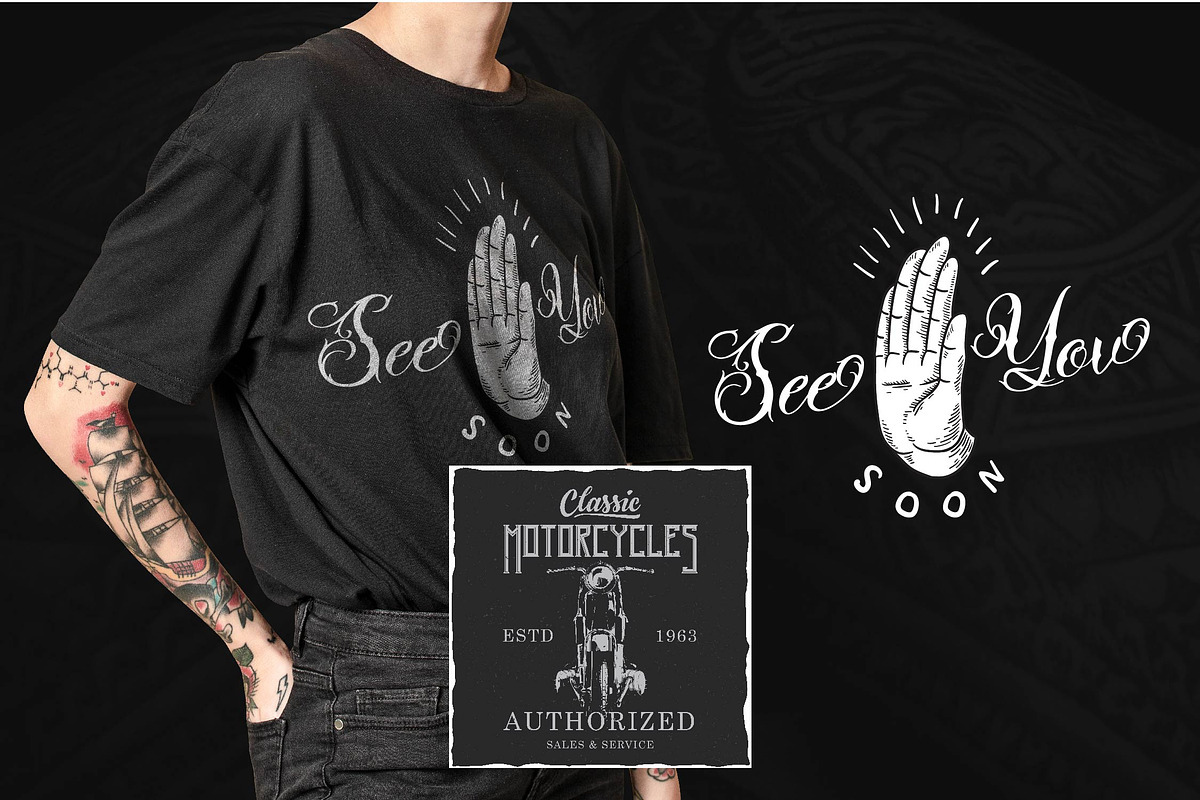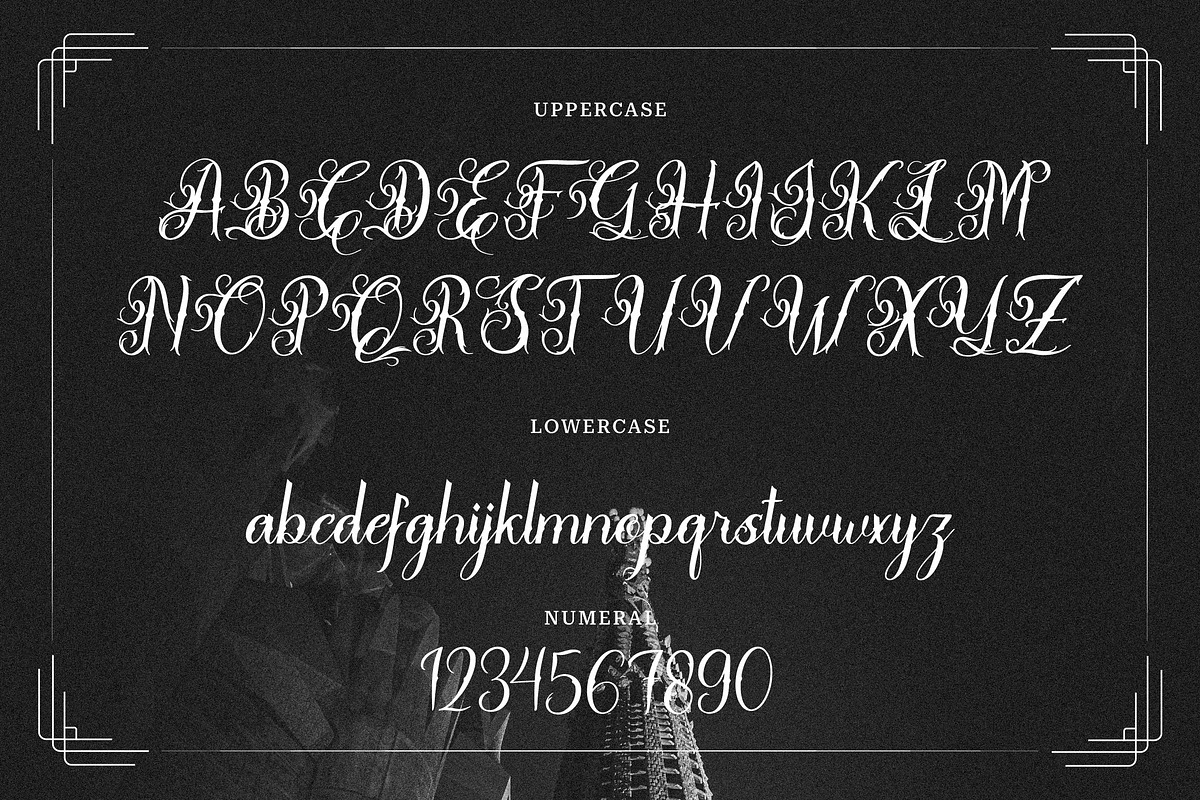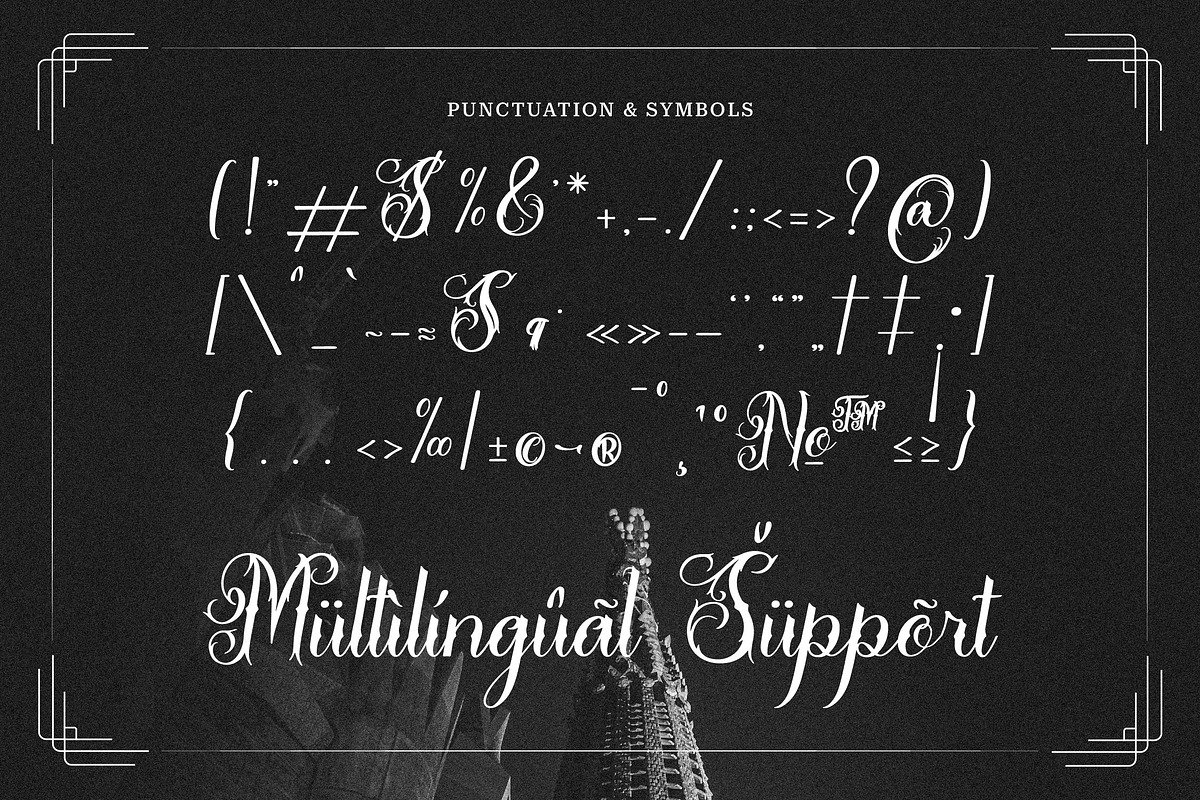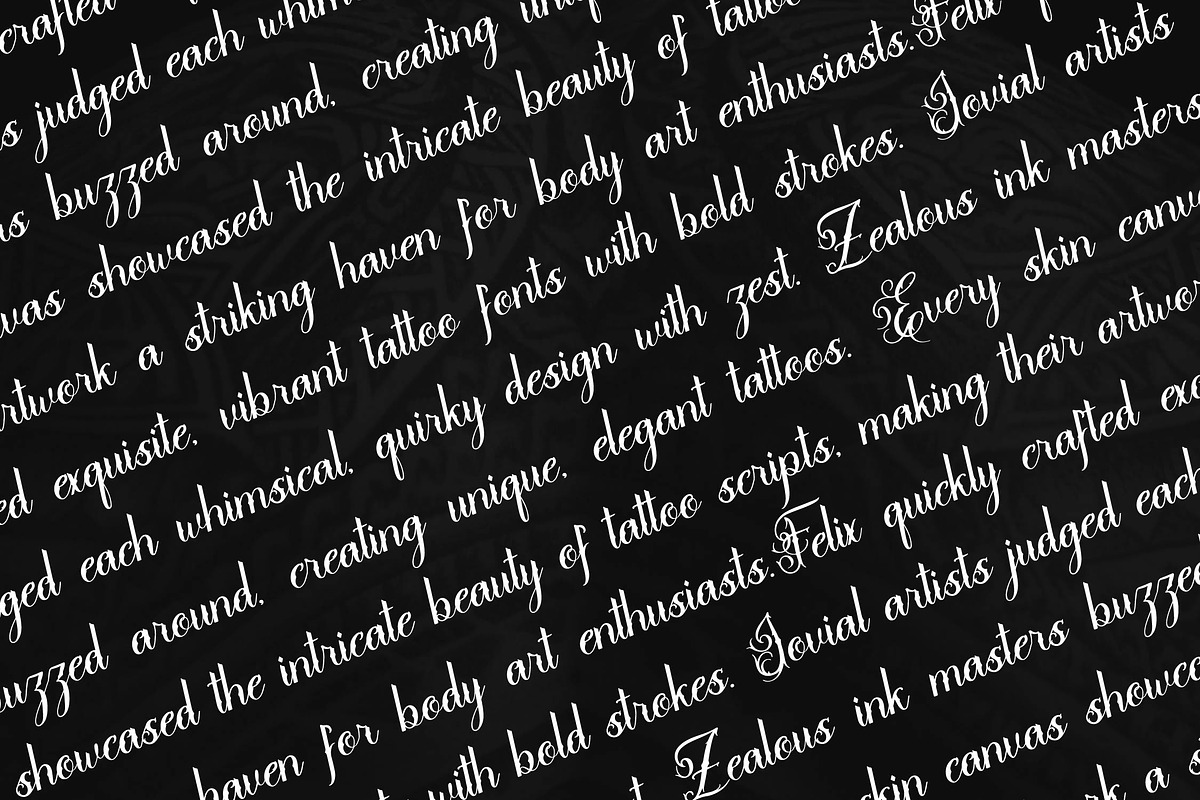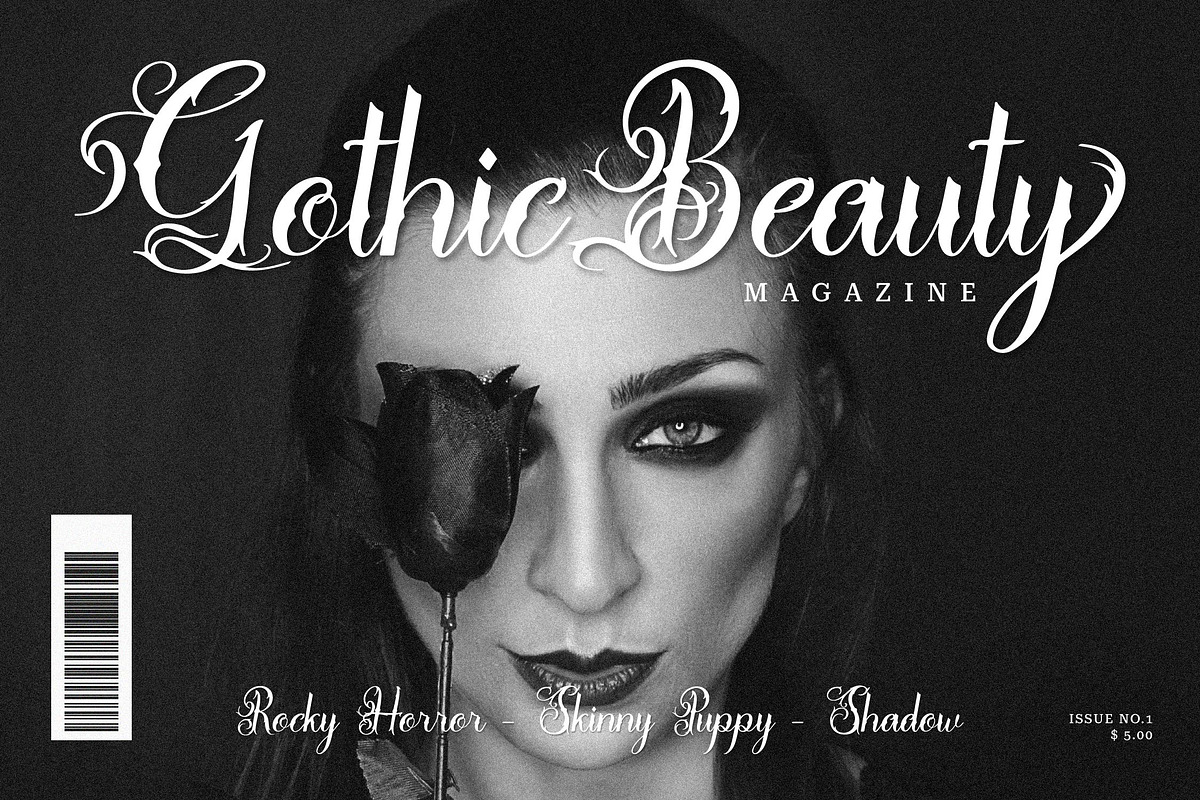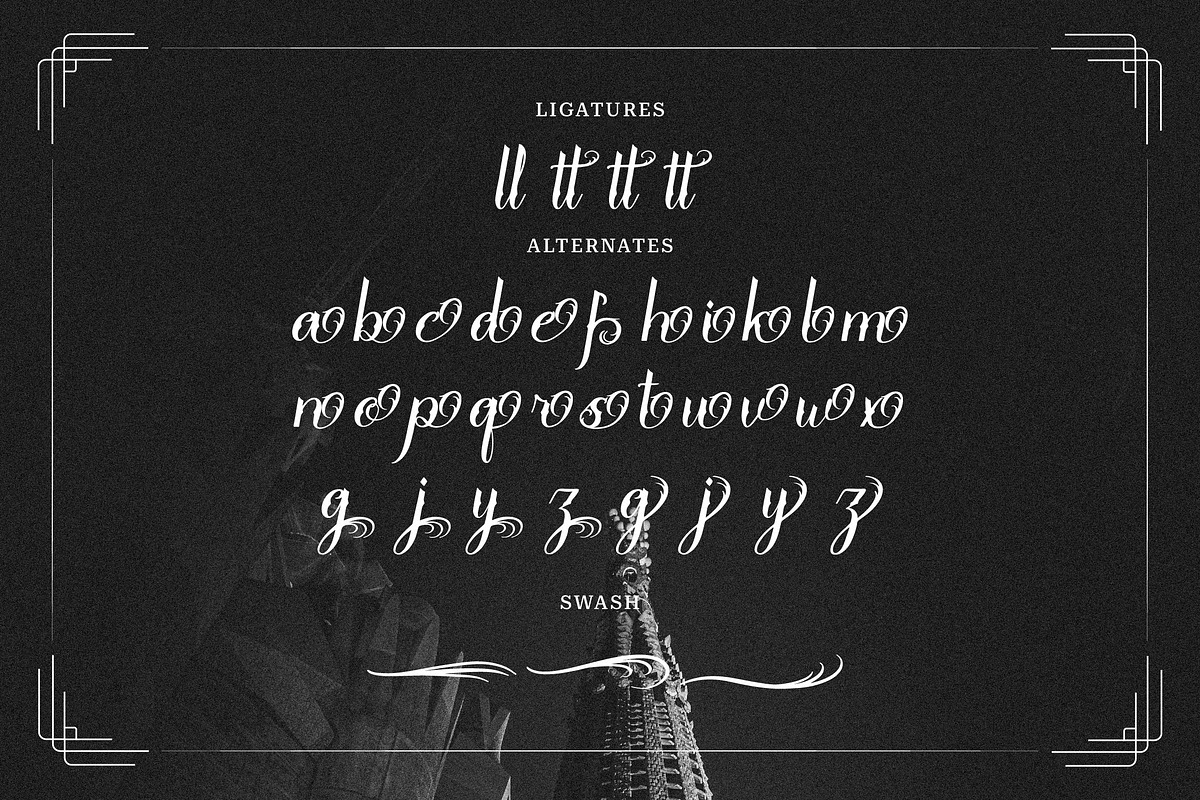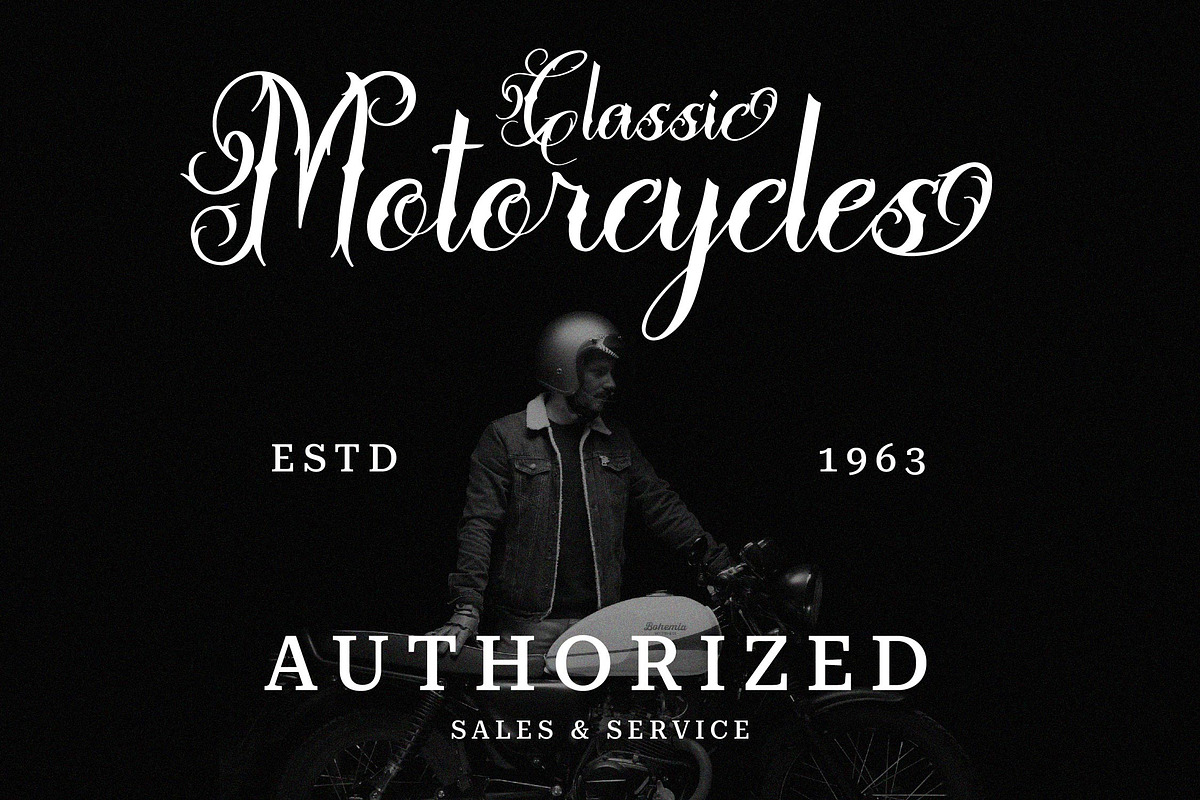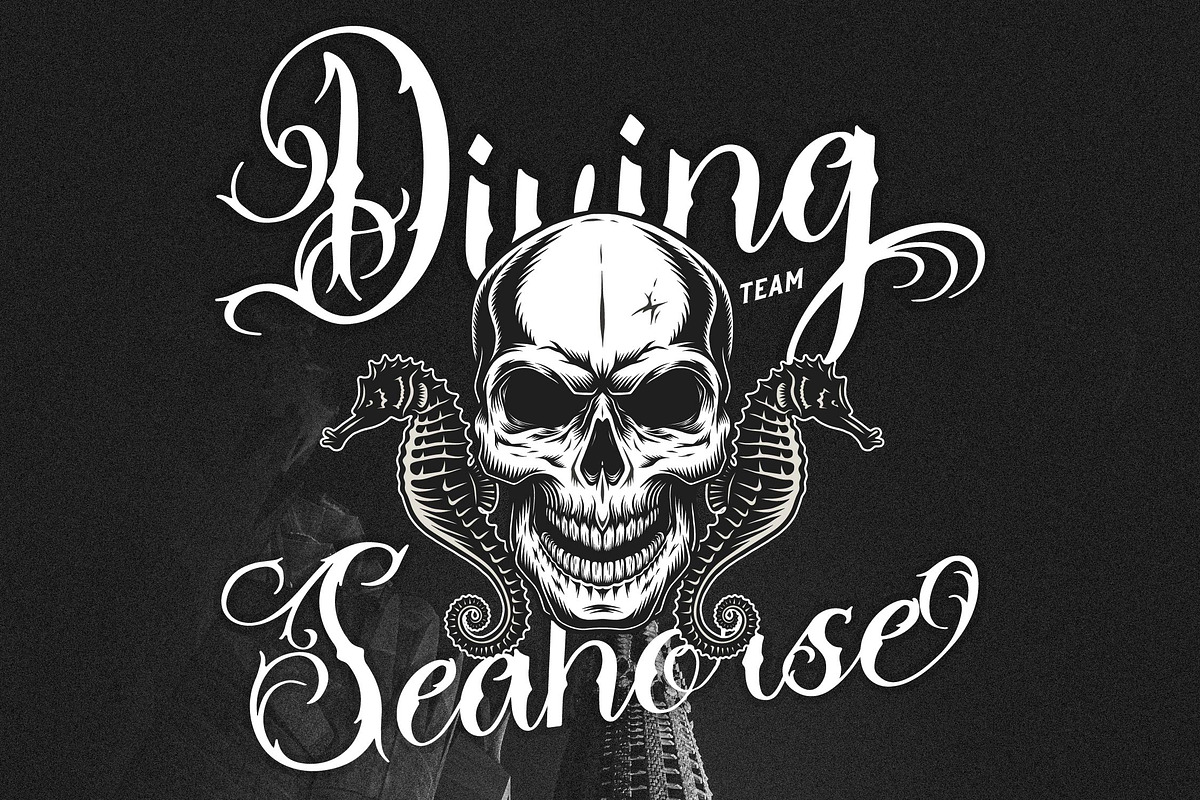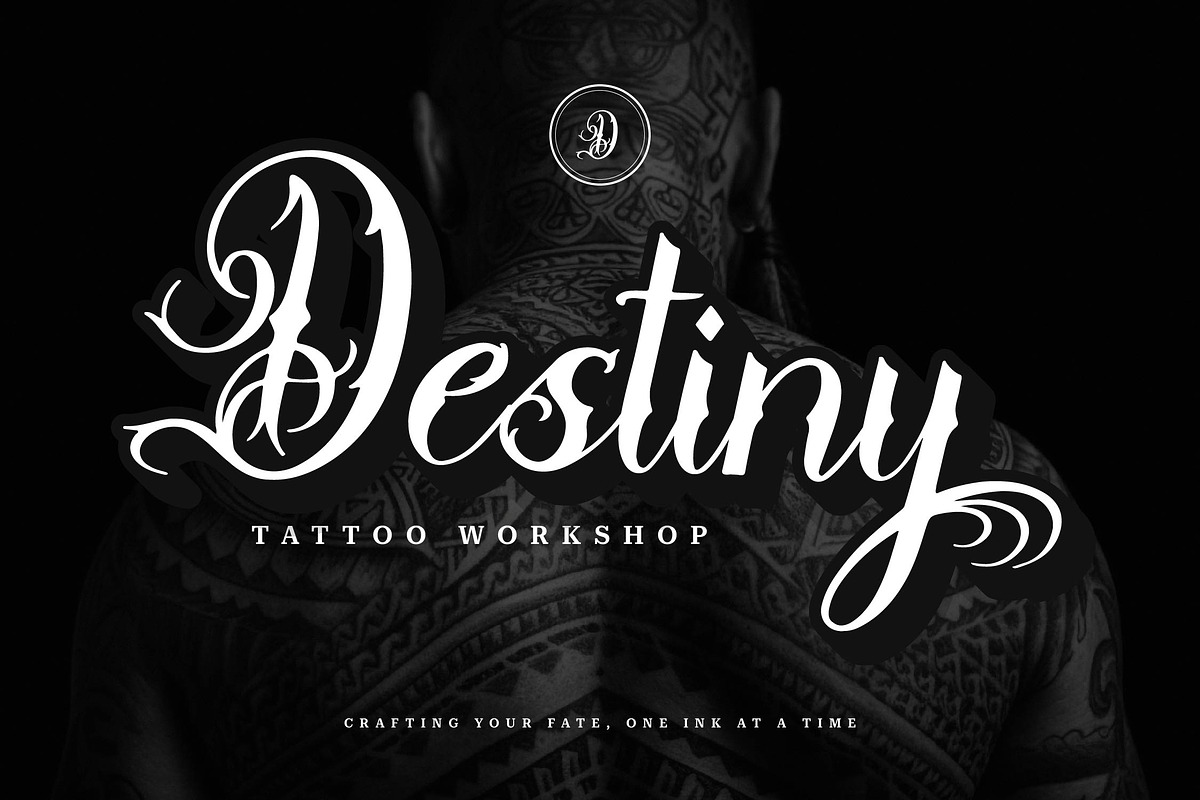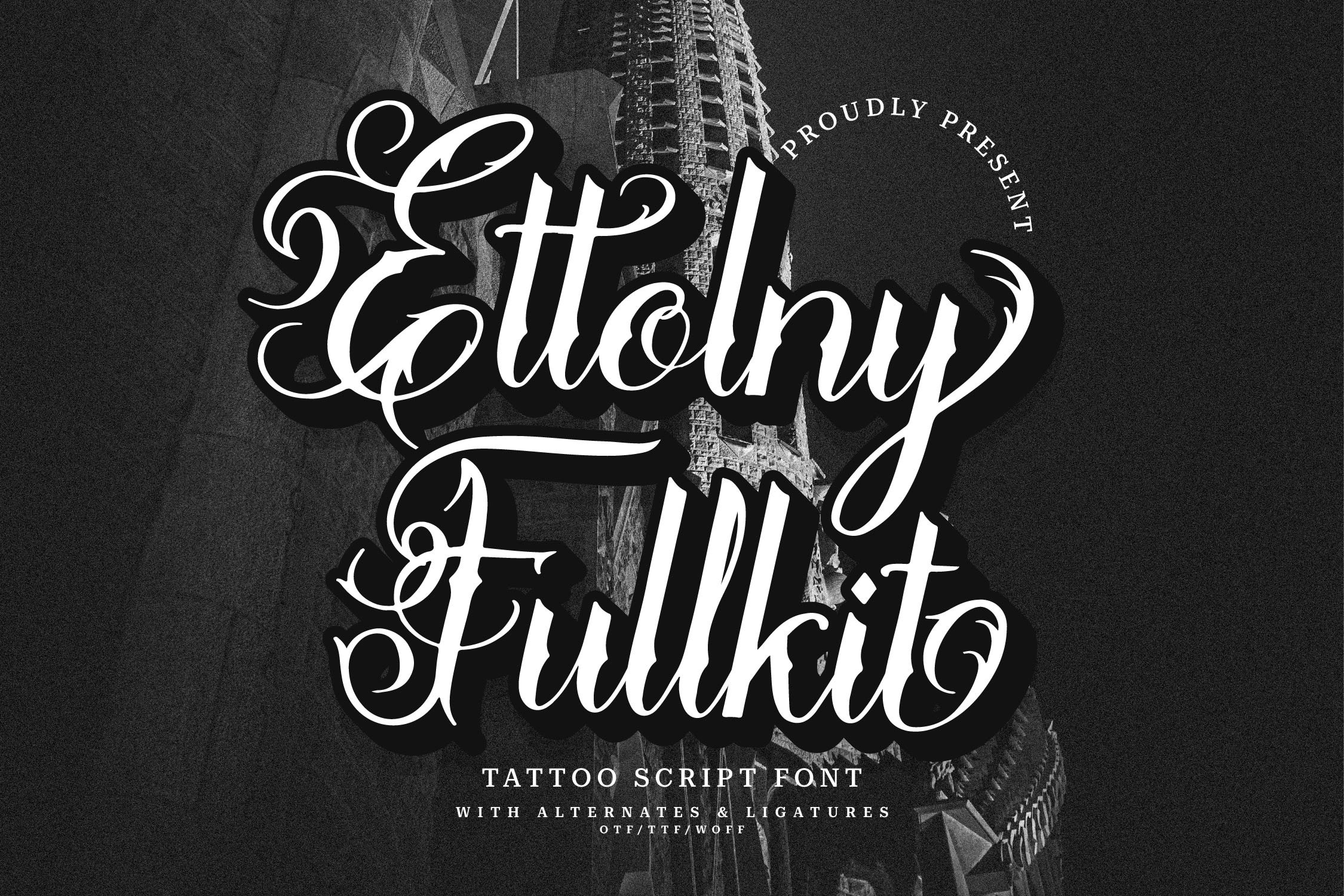
Ettolny Fullkit | Tattoo Script Font
Ettolny Fullkit | Tattoo Script Font, from Denustudios, suitable for any projects such as: logos, branding projects, homeware designs, product packaging, mugs, quotes, posters, shopping bags, t-shirts, book covers, name card, invitation cards, greeting cards, label, photography, watermark, special events, and all your other lovely projects that need a Tattoo Script Font taste.